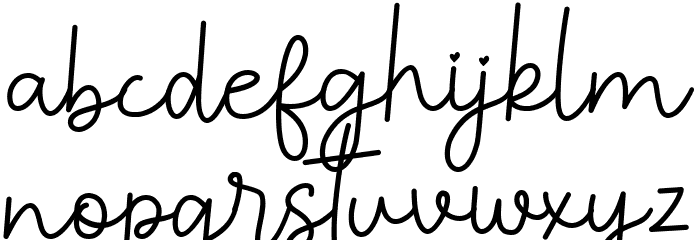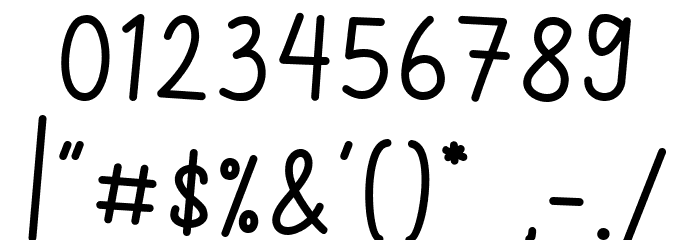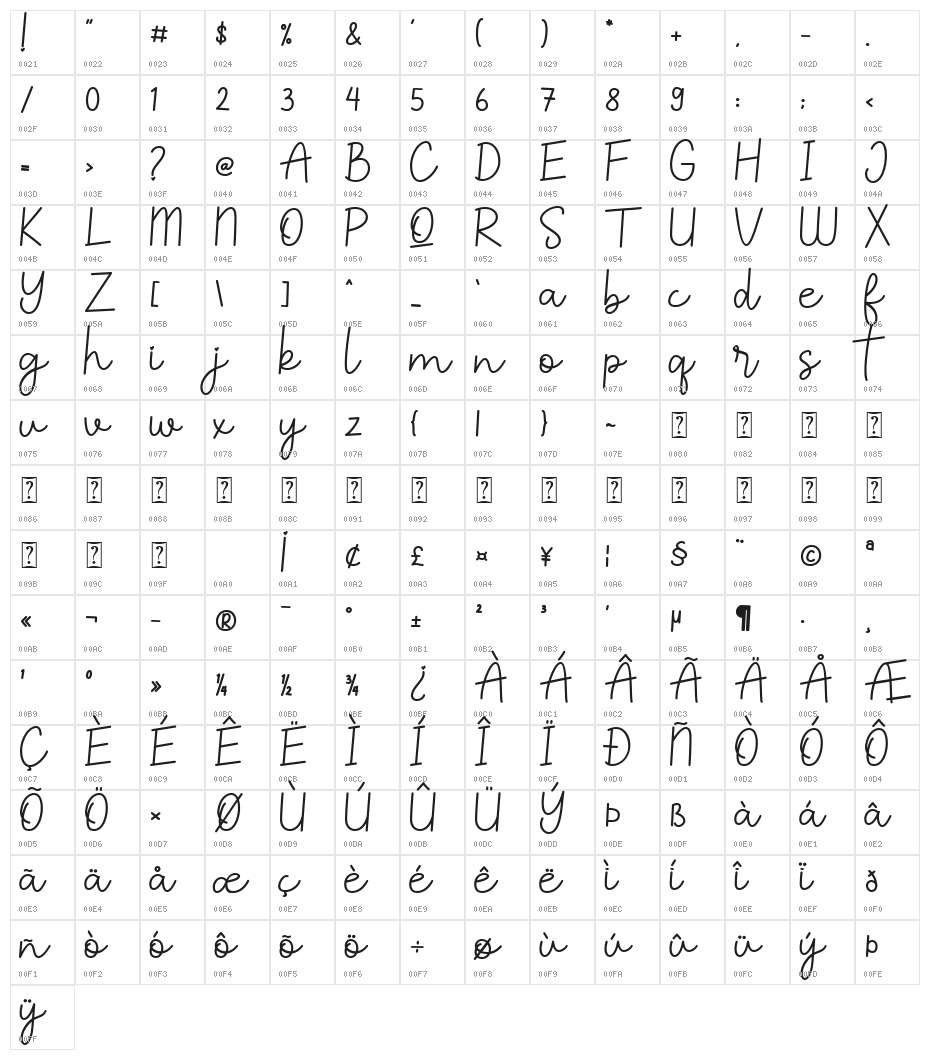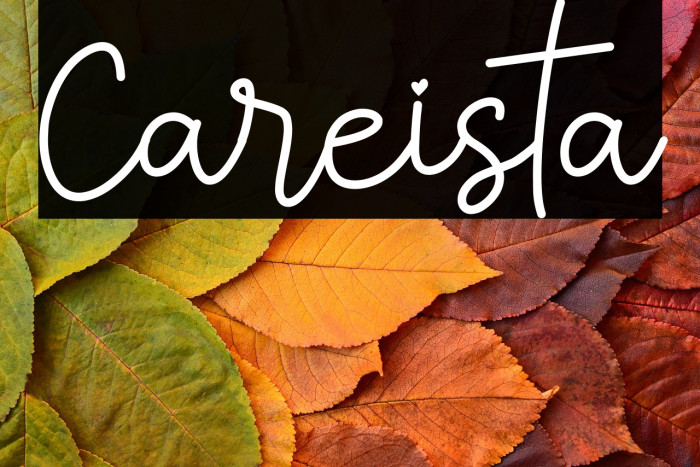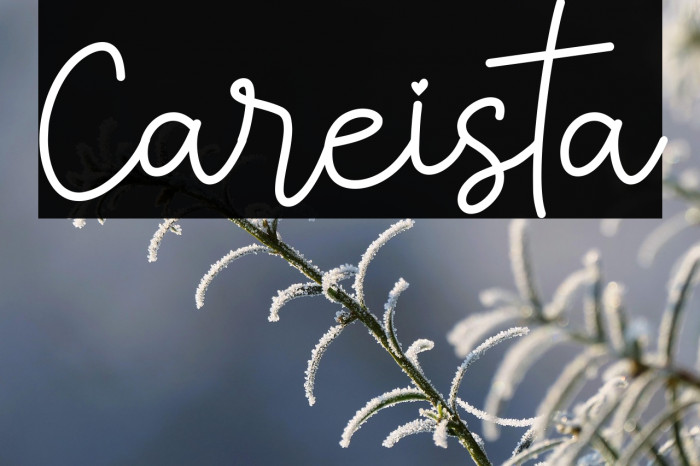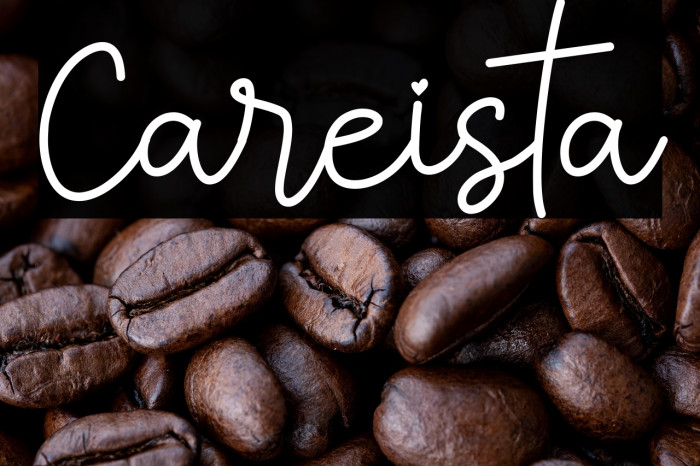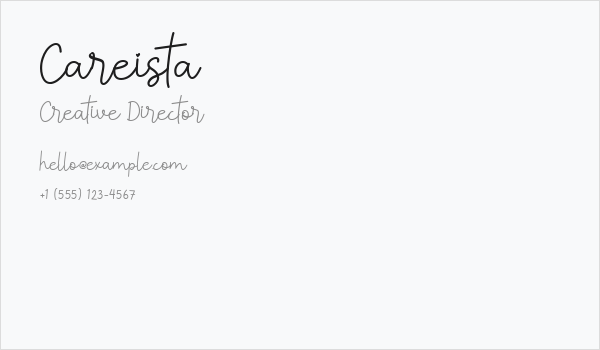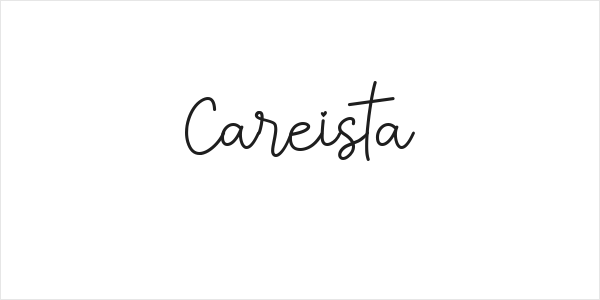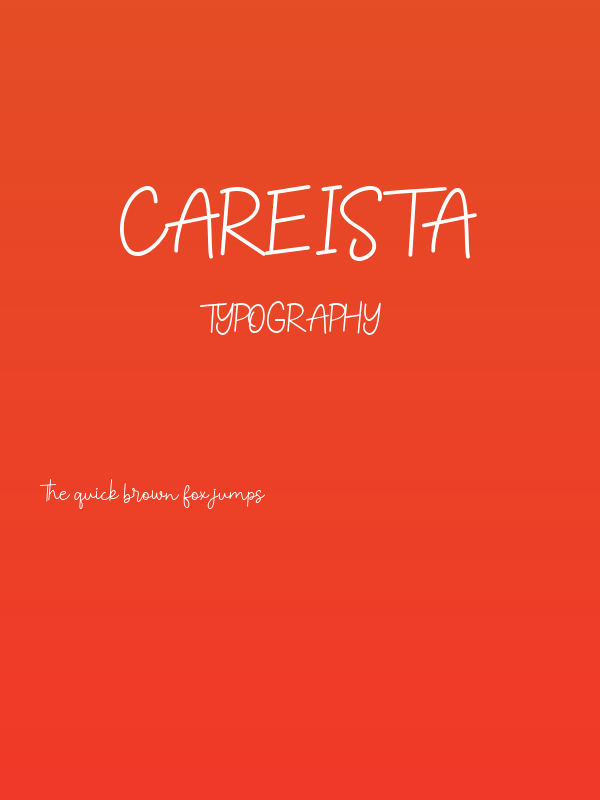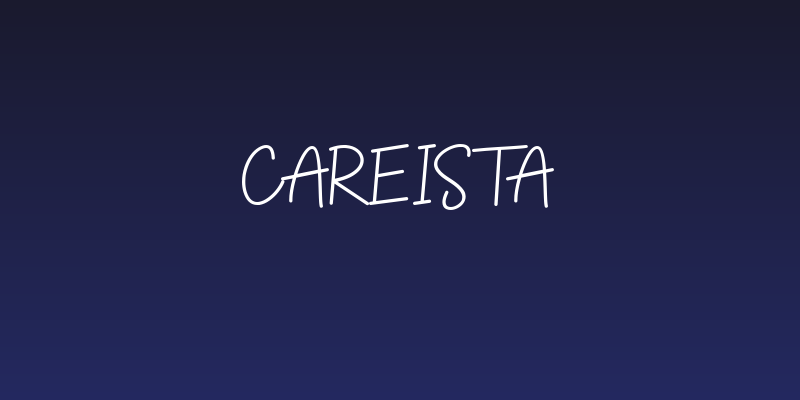
Careista Font
This font features a playful and casual handwritten style, characterized by smooth, flowing lines and a slight slant to the right. The uppercase letters are tall and narrow, while the lowercase letters maintain a consistent baseline with occasional loops and curls, adding a whimsical touch. The numerals are clear and legible, matching the overall style with their rounded forms. Special characters are well-integrated, maintaining the font's cohesive appearance. This font exudes a friendly and approachable vibe, making it suitable for informal and creative projects.
A playful handwritten font with smooth, flowing lines and a casual style.
- Font: Careista
- Proposed Projects: Ideal for greeting cards, personal branding, social media graphics, and children's book illustrations.
- Category: Handwritten
- Overall Style: Casual
- Use Case: Headlines, Logos, Invitations